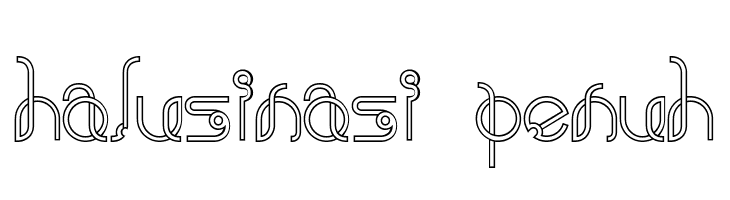
A modern, interconnected font with continuous lines and geometric shapes.
A futuristic and geometric font with continuous line designs and a modern aesthetic.